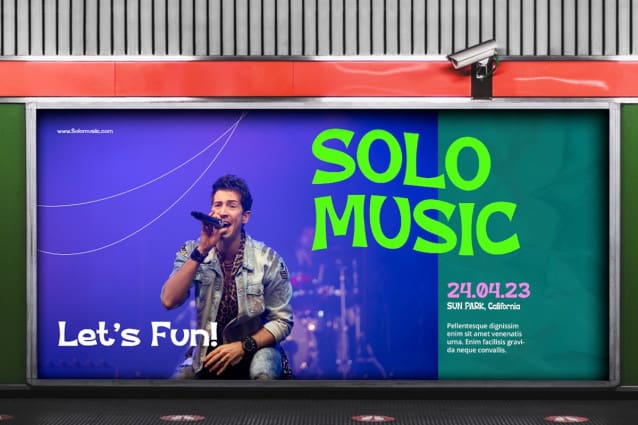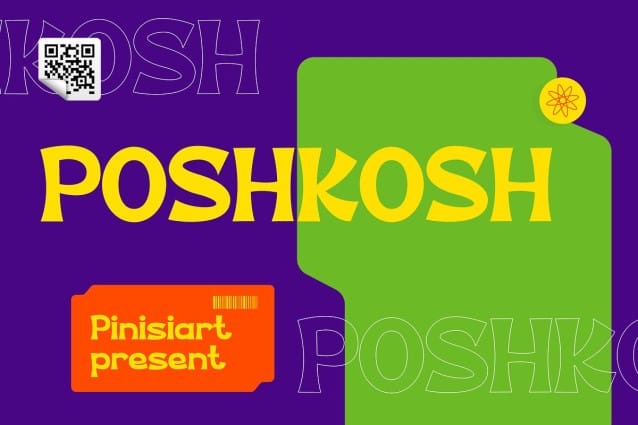
Poshkosh Display Font
Poshkosh Display Font – the ultimate Display Font for your Instagram, YouTube, music, and movie needs. Whether you’re creating stunning social media posts or designing captivating logos, it is the perfect font to add a touch of elegance to your work.
With its unique blend of Sans Serif and Serif font elements, Poshkosh Display offers a bold and modern look that’s sure to grab the attention of your audience. Its clean lines and sophisticated style make it a great choice for any project that requires a sleek and professional touch.
But that’s not all – Poshkosh Display also comes with plenty of nature foliage and floral elements, giving your designs a natural and organic feel. Whether you’re working on a branding project or creating a beautiful poster, it is the font that will take your work to the next level.